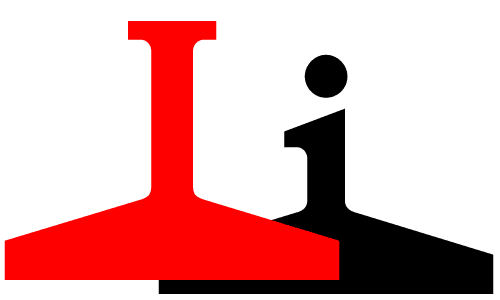
The i, so small, so tiny, so modest, always squeezed in
between the other characters, taking up hardly any space. Well, no
longer. This I claims its space boldly.
Why does the cap W
get all that room? Or that big fat O. What did they do
to deserve all that space? Sure the I is used more often
than the W in the English language, but thats no
reason to short change it on space. How about that T and
L wasting all that space, making life miserable for type
designers? Why do they get to be so difficult for no good reason at
all? Enough already. This I says, Get out of the
way, cause here I come. Kern this, baby! |